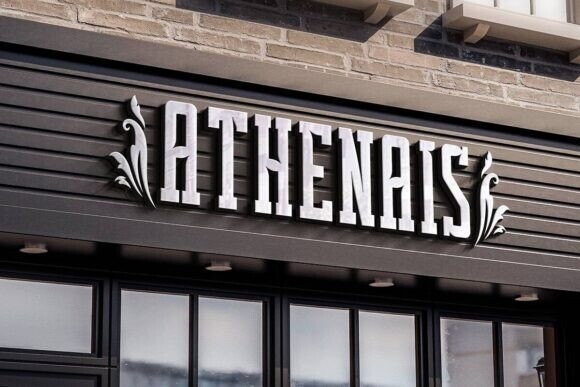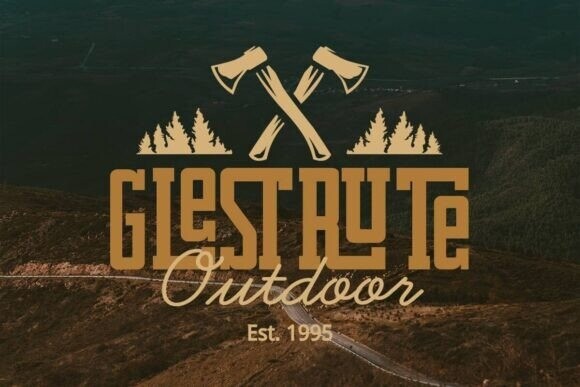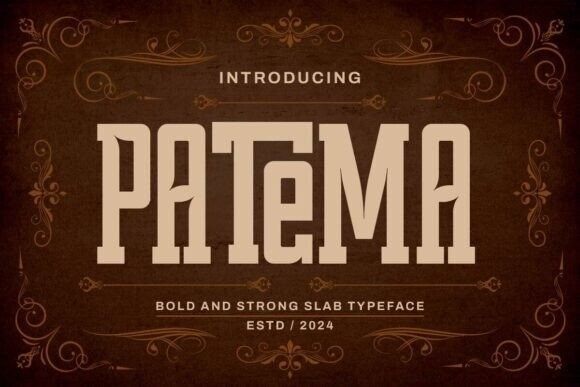
Patema Font
Patema Font – Slab Serif Condensed Font, a bold yet elegant typeface meticulously designed to combine the strength of slab serif with the sleekness of condensed letterforms. Patema is crafted to elevate your designs with a refined, timeless aesthetic, perfect for projects that demand both impact and sophistication.